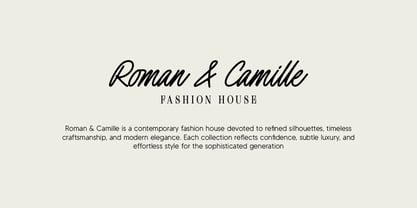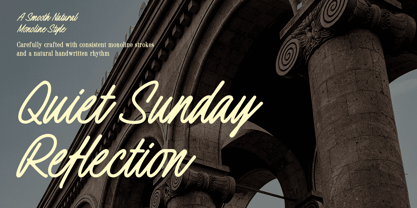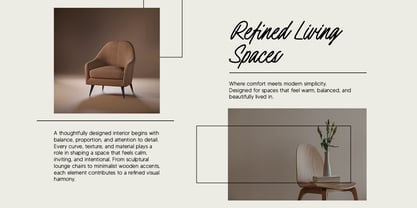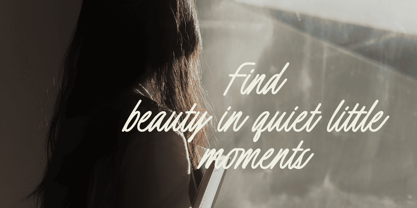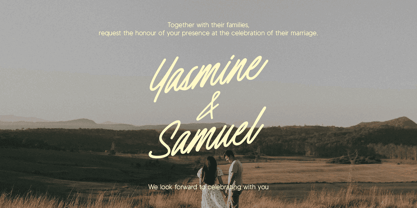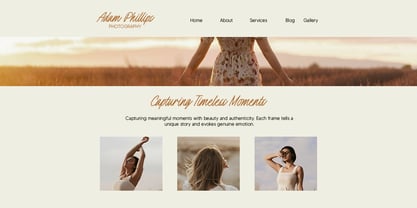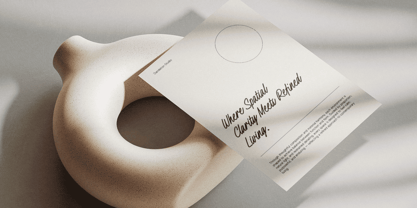
Quiet Sunday Reflection
The Quiet Sunday Reflection Font Family was designed by Dwi Ahidian and published by Lemonthe. Quiet Sunday Reflection contains 1 styles. More about this family
Quiet Sunday Reflection is a smooth monoline script font designed with consistent stroke weight and balanced letterforms. It features a natural handwritten rhythm while maintaining clarity and structure, making it suitable for both display and practical design use. The letter connections are carefully crafted to ensure readability and smooth flow across words. Its clean curves and controlled proportions create a modern yet approachable look that works well in branding, logos, packaging, invitations, social media graphics, and many more. Quiet Sunday Reflection provides a functional signature-style appearance with stable construction and versatile application across various creative projects.
"Lemonthe is a type foundry operated by Dwi Ahidian, a letter enthusiast who enjoys calligraphy and loves experimenting with letter forms. Lemonthe provides a captivating collection of typefaces, each carrying a creative and unique experimental touch, meticulously crafted by hand. Dedication to detail ensures that some typefaces emanate a deep and serious aesthetic, while others showcase a more playful and creative side."